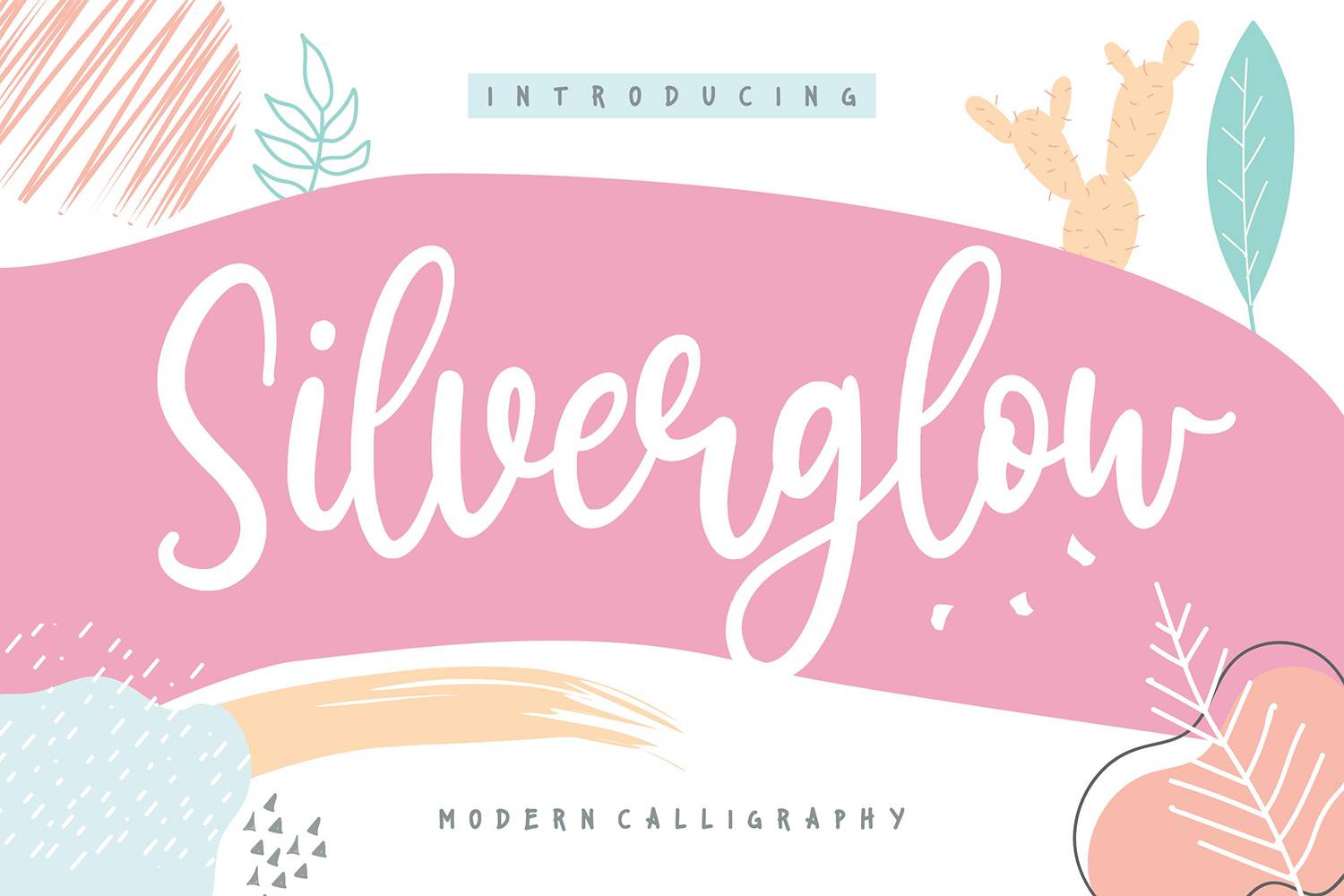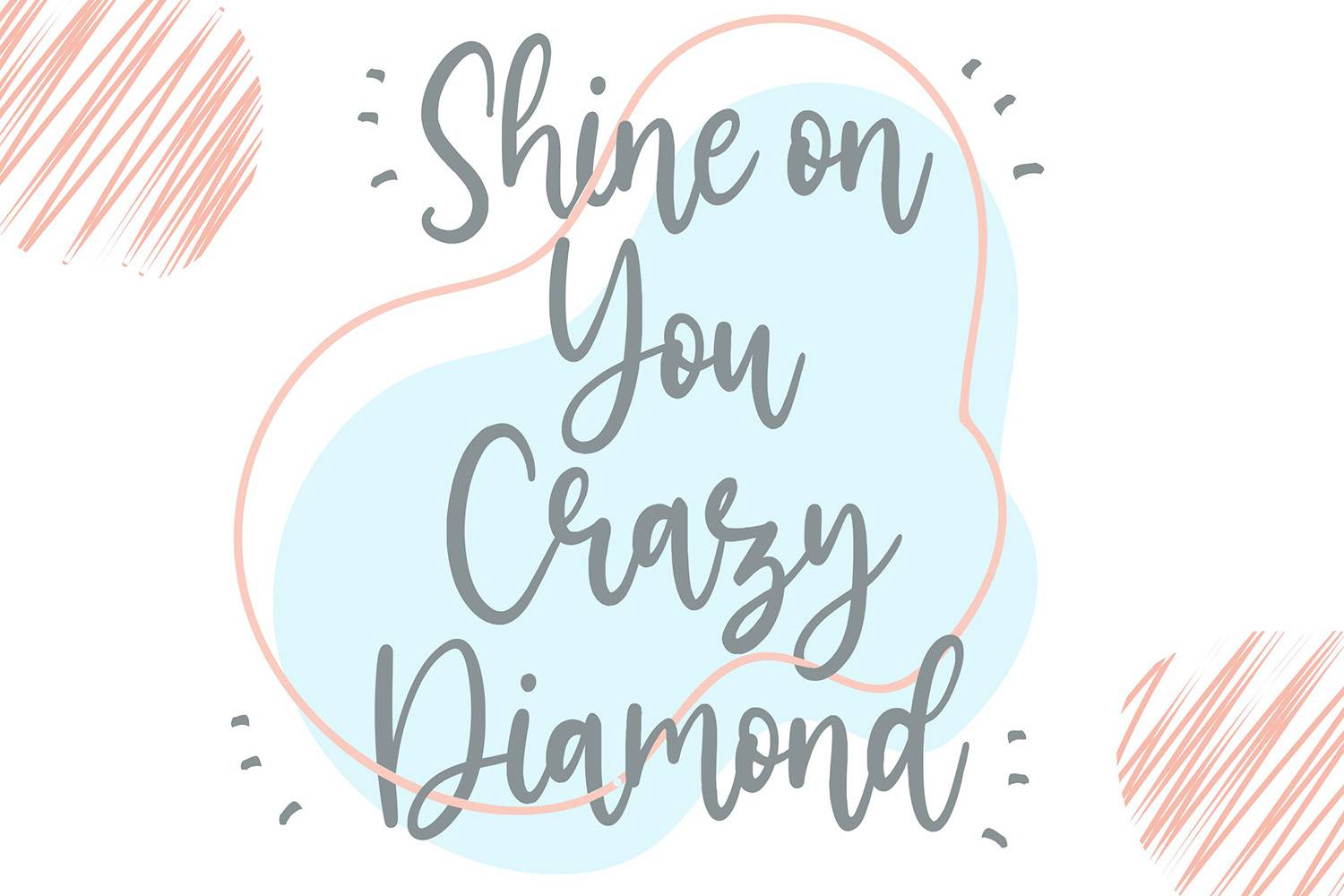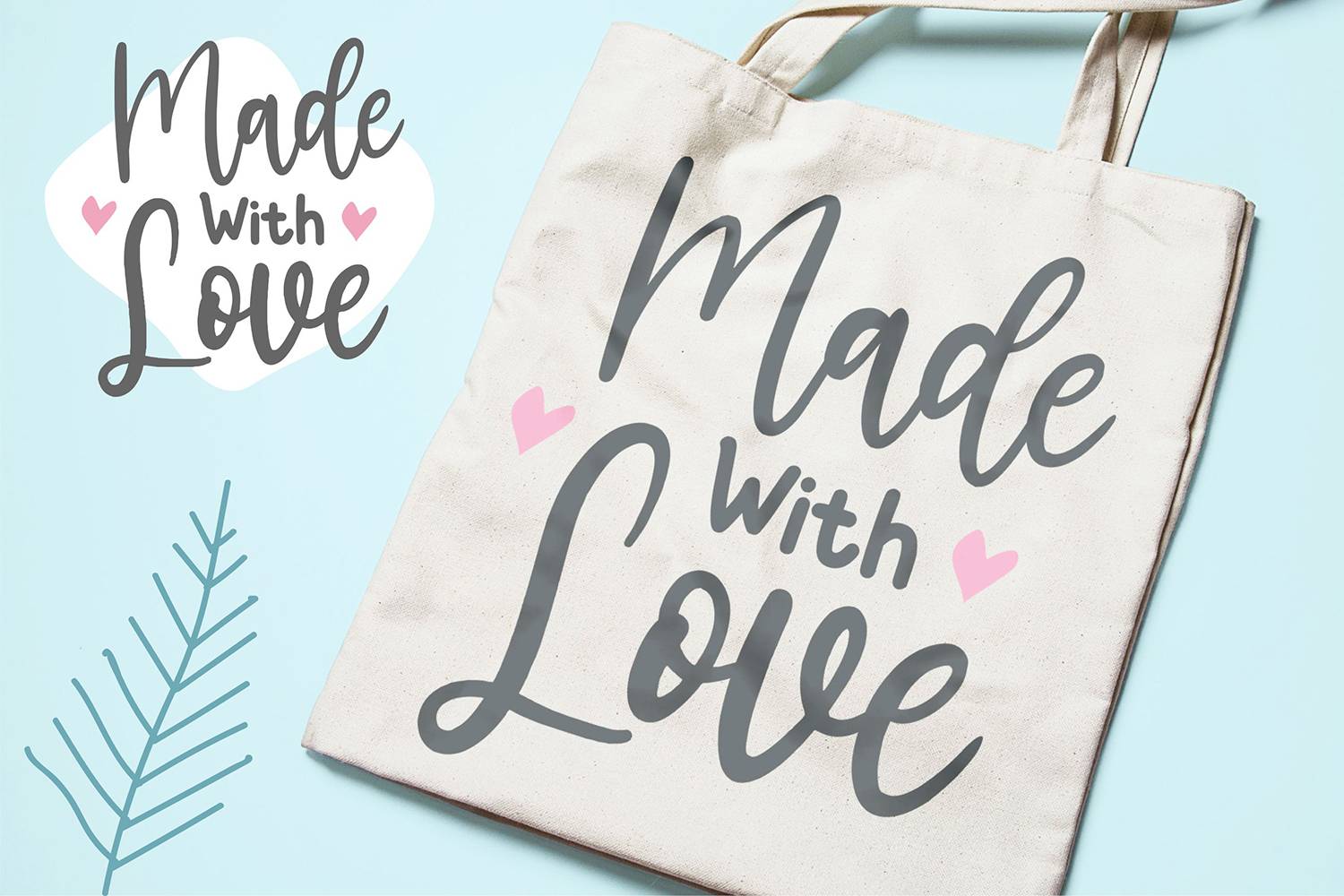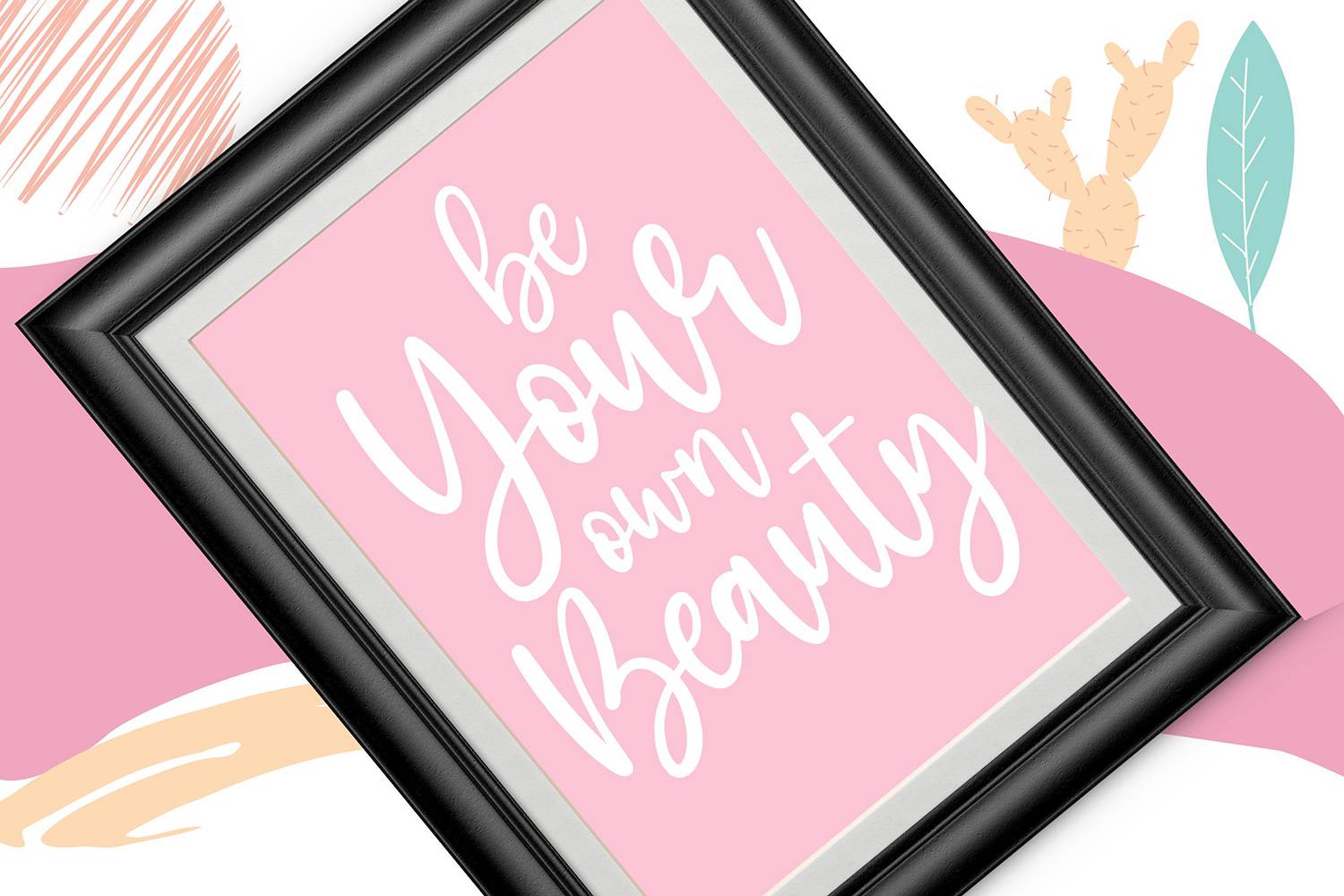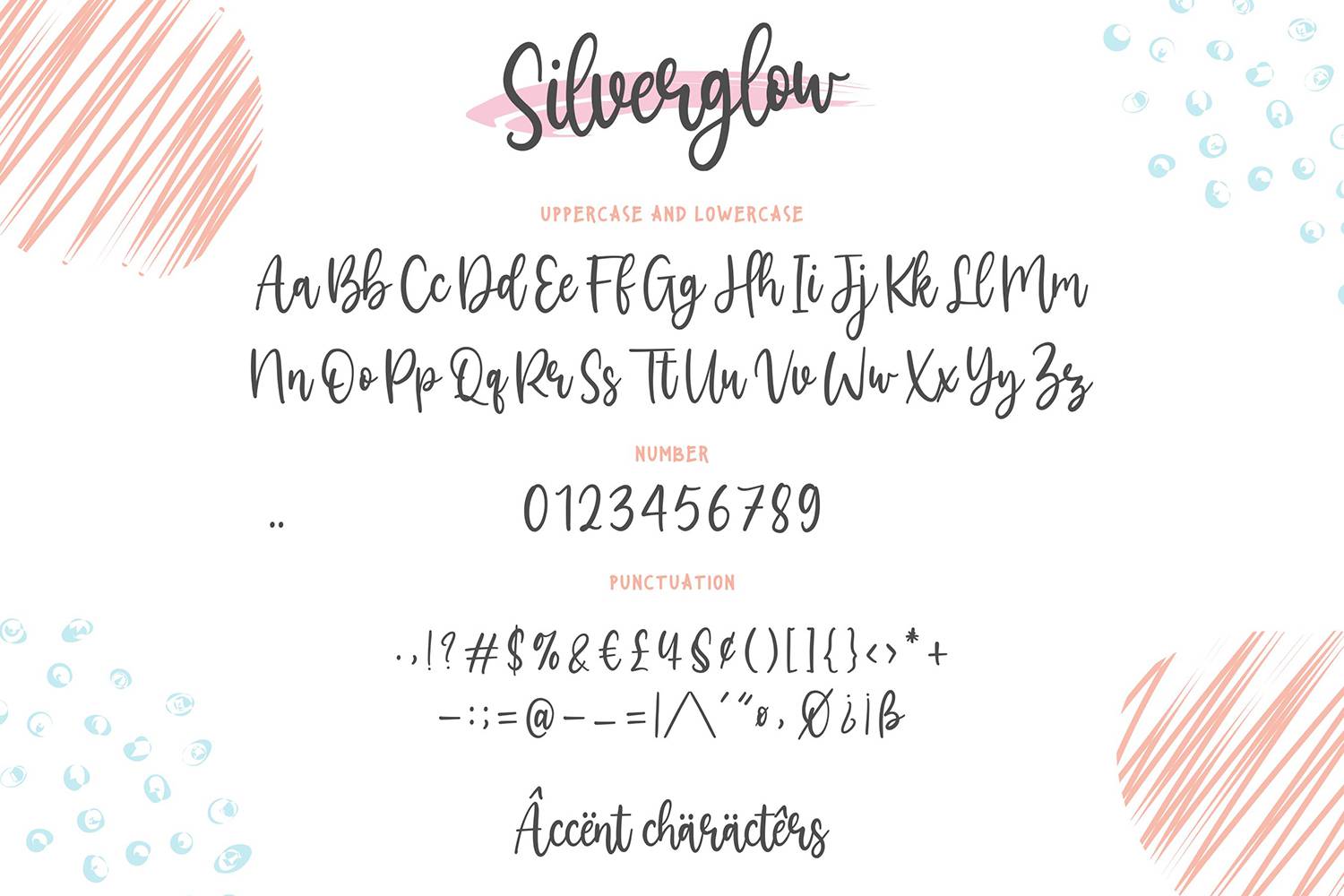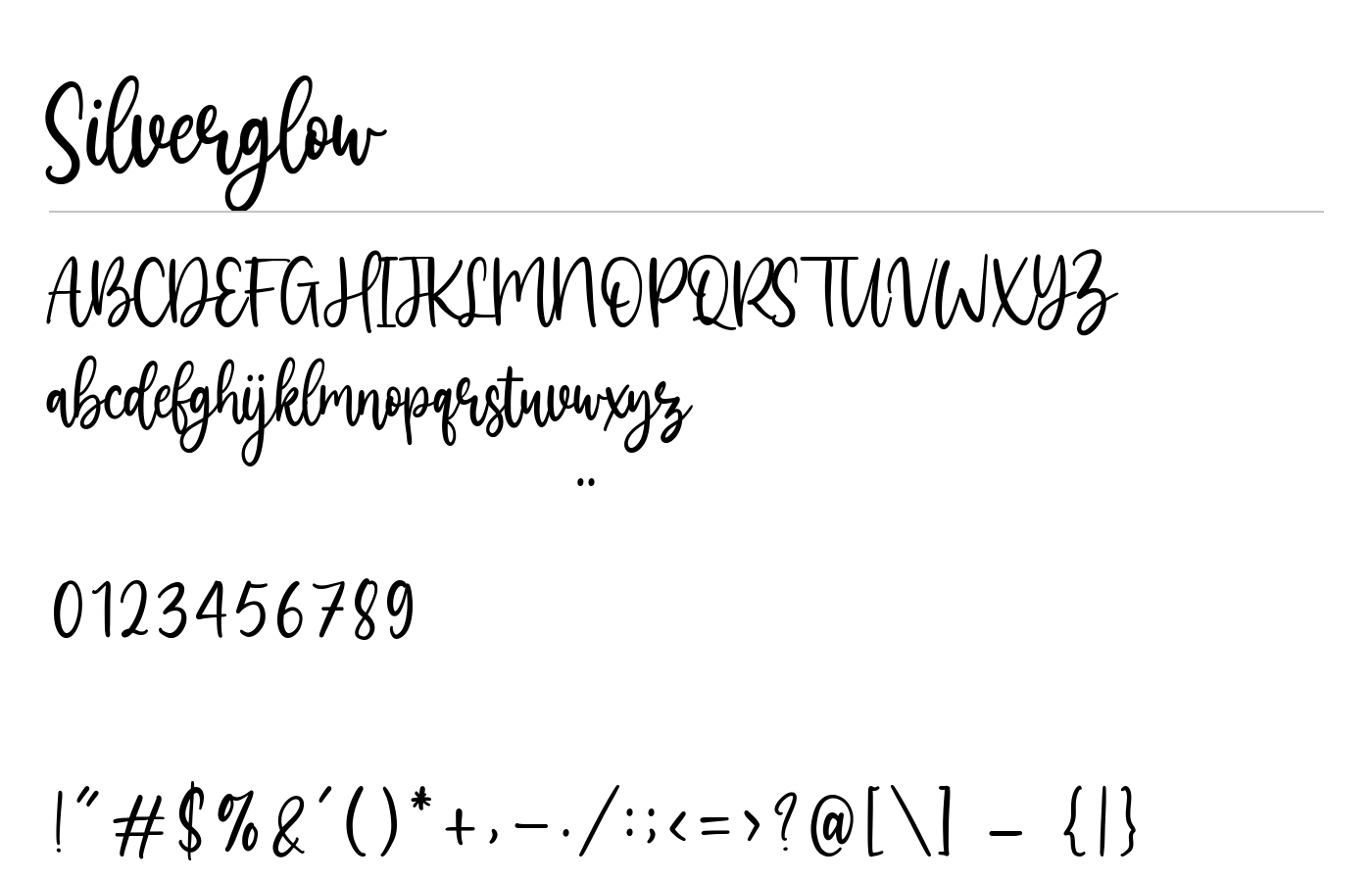
Silverglow is a playful, handwritten script font with a casual and friendly feel. Its tall, narrow letterforms and consistent light stroke weight give it an airy, approachable look, perfect for creative, informal designs. This font works beautifully for invitations, branding, and social media where a personal and charming touch is desired.
| Font family | Silverglow Font |
| Designer | Balpirick 2020 |